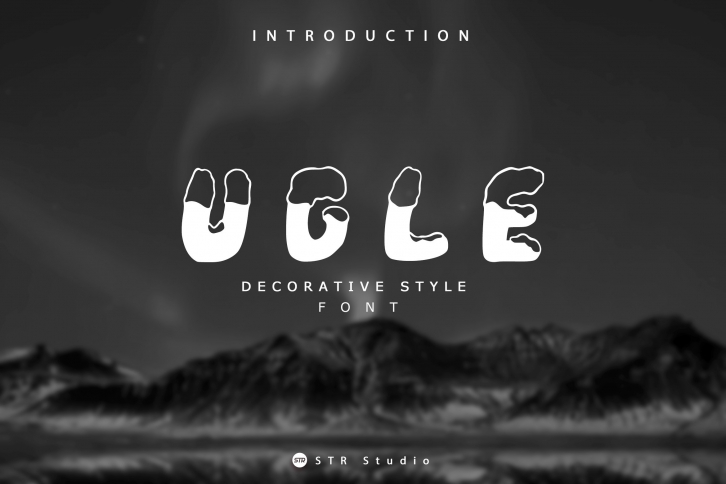
Ugle is a cool and wintery decorative font. It works well on various designs related to the cold season, such as Christmas cards, invitations or letters.